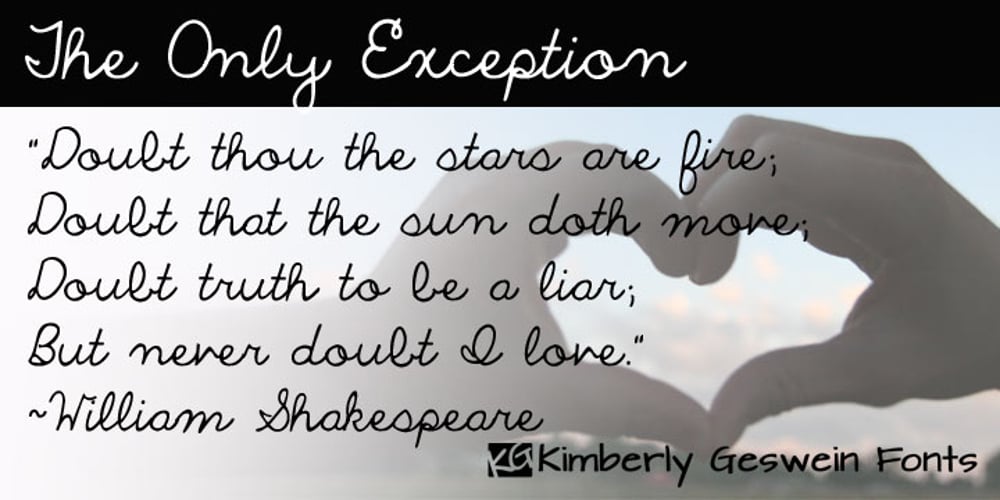
The Only Exception
The Only Exception font
The Only Exception Font Family was designed by Kimberly Geswein and published by Kimberly Geswein. The Only Exception contains 1 styles and family package options. This font was inspired by my sister Emily’s handwriting. She has neat, fluid cursive handwriting.